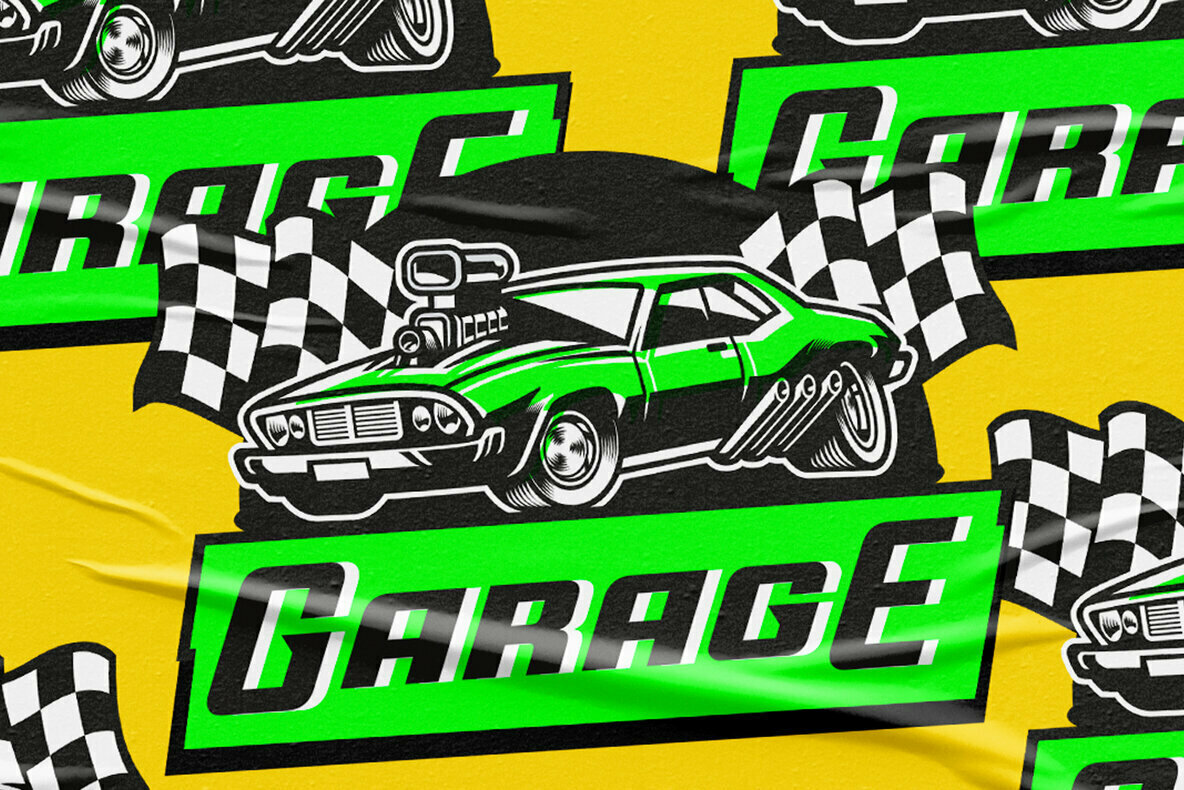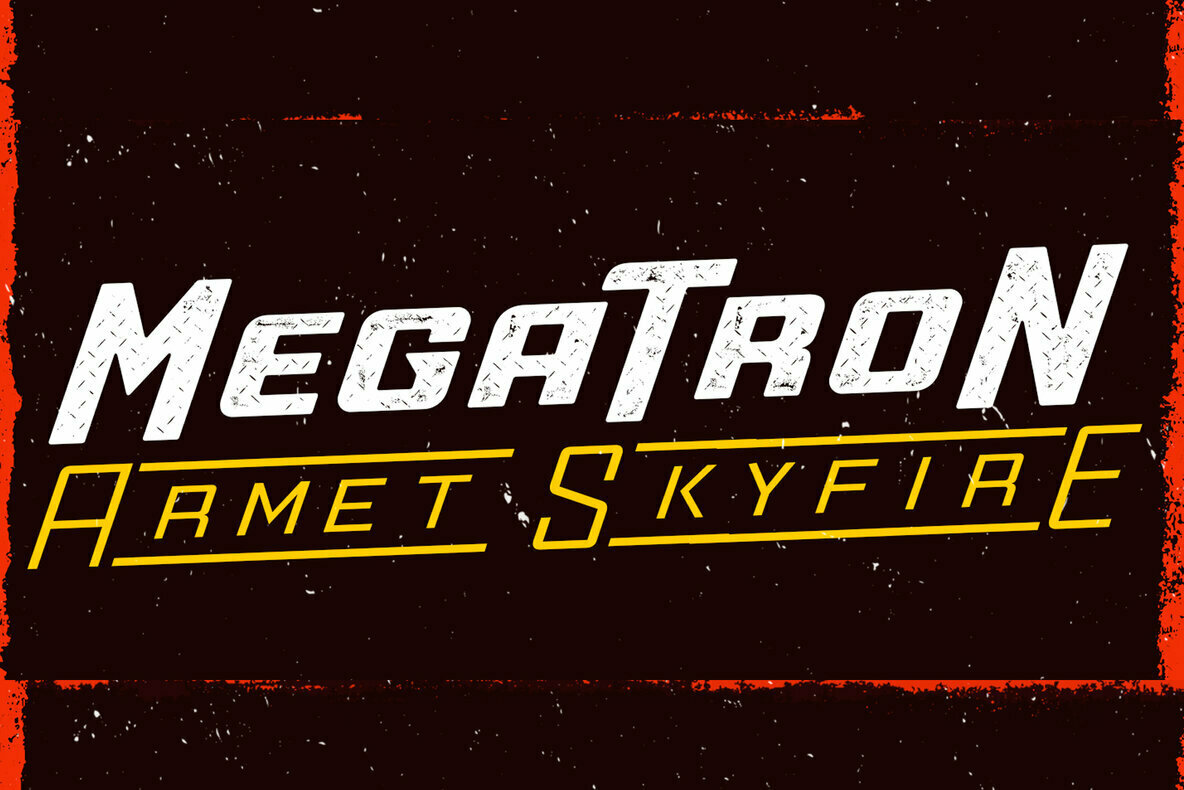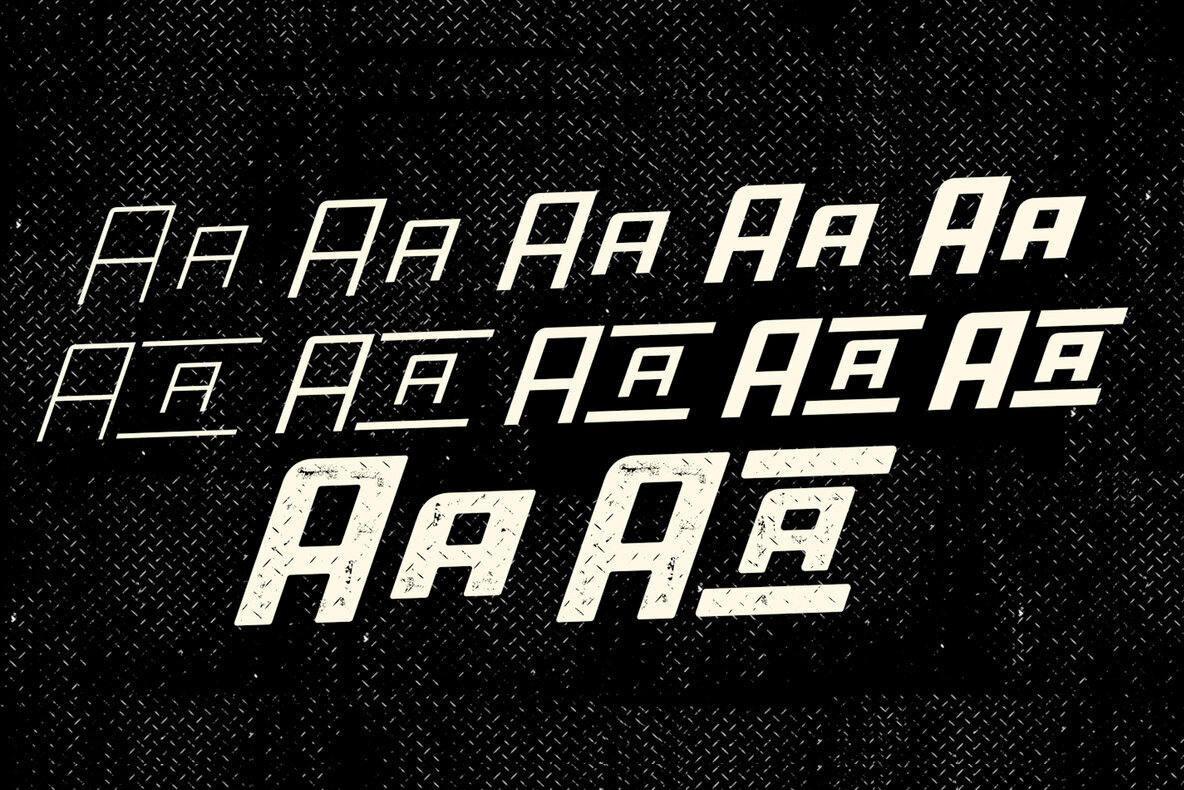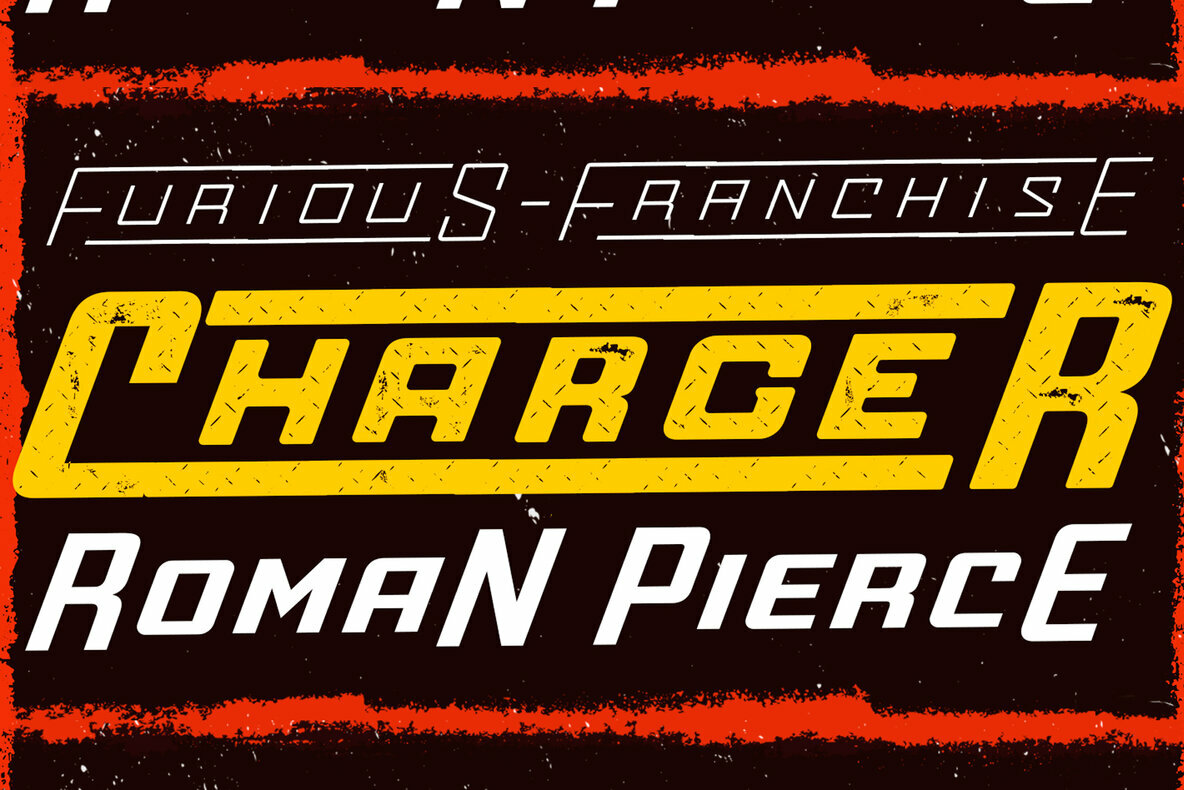
Toretto Font
Designed by Rodrigo Typo, Toretto is a versatile display sans font family ideal for capturing attention in graphic design projects. With twelve distinct styles, this typeface offers ample flexibility for branding, advertising, and editorial design.Toretto: Dynamic Display Sans with Varied Styles
Experience the range and adaptability that Toretto brings to digital design, where versatility meets modernity.